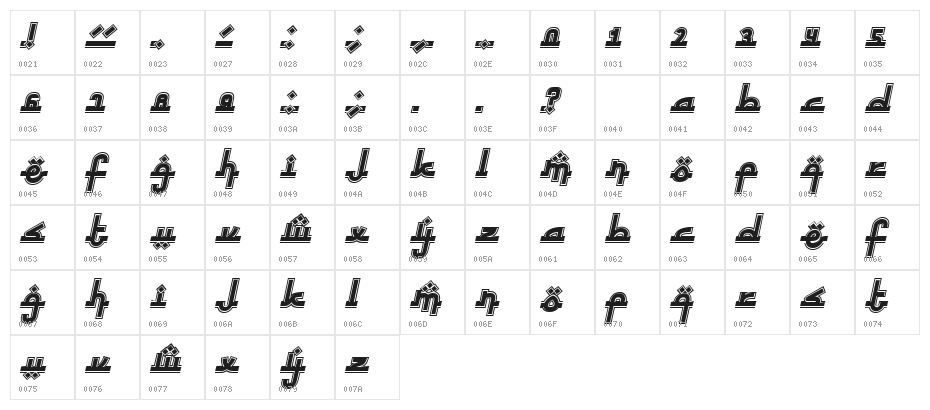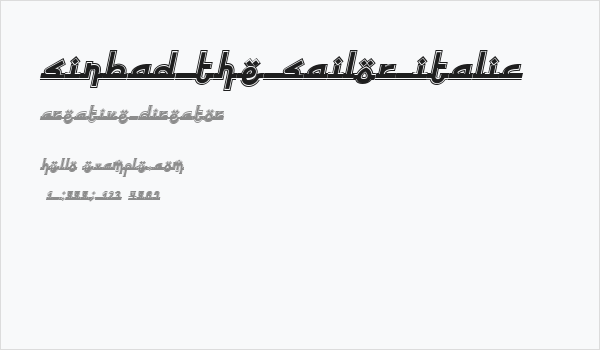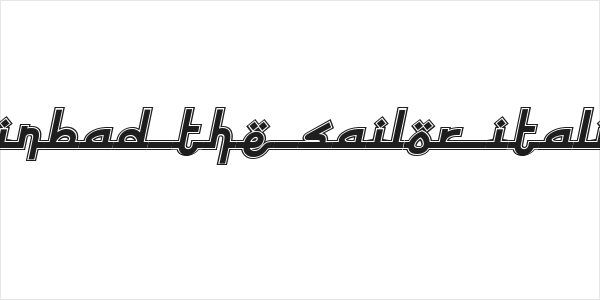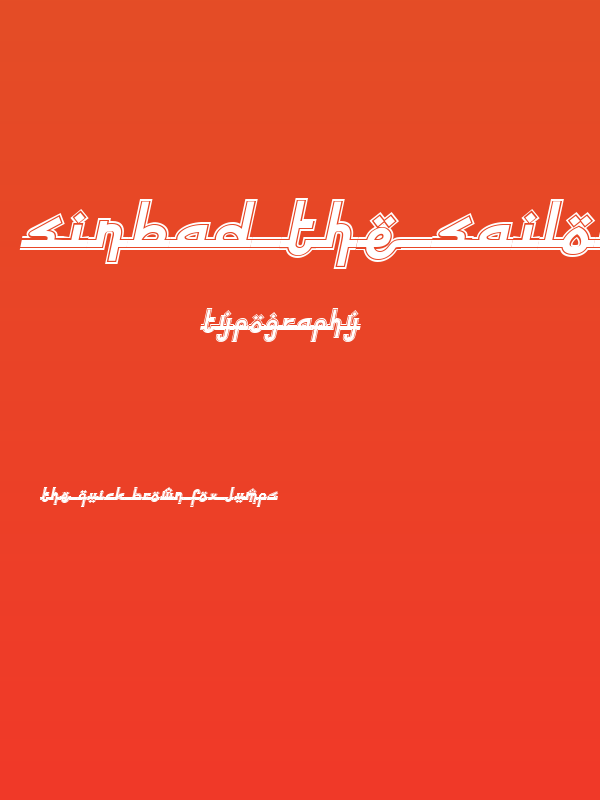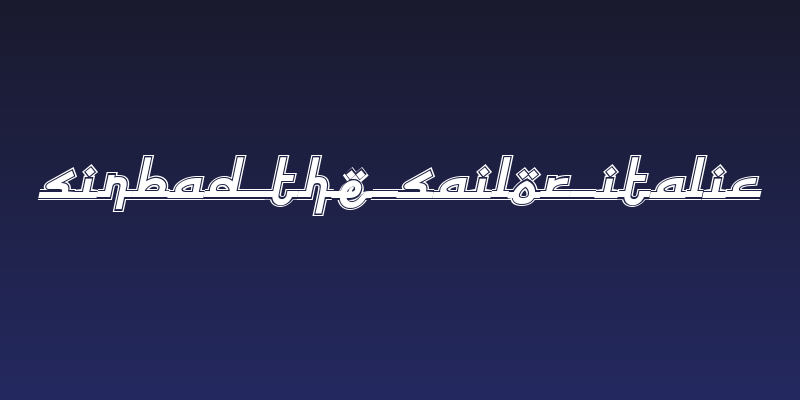
Sinbad the Sailor Italic Font
Sinbad the Sailor Italic Description
This font features a bold and dynamic design with a strong italic slant, giving it a sense of movement and energy. The characters are outlined with a thick black border, enhancing their visibility and impact. The letters are interconnected with a continuous line, creating a cohesive and flowing appearance. The font includes a full set of uppercase and lowercase letters, numbers, and a variety of special characters. Its unique style is reminiscent of vintage or retro aesthetics, making it suitable for projects that require a distinctive and eye-catching typeface.
| Proposed Projects | Ideal for retro-themed posters, branding, logos, and creative design projects that require a standout typeface. |